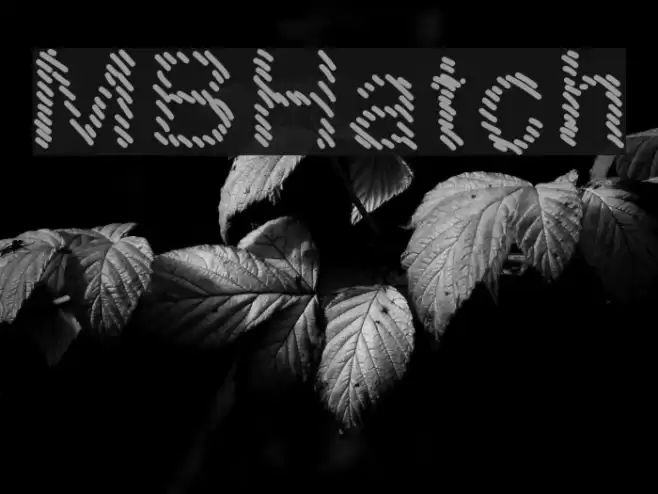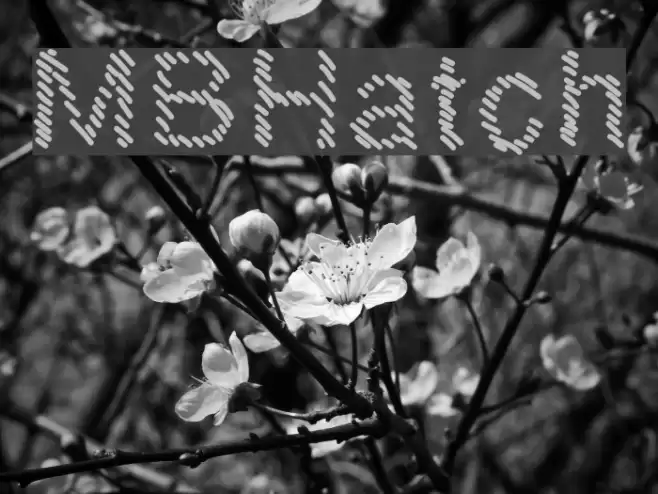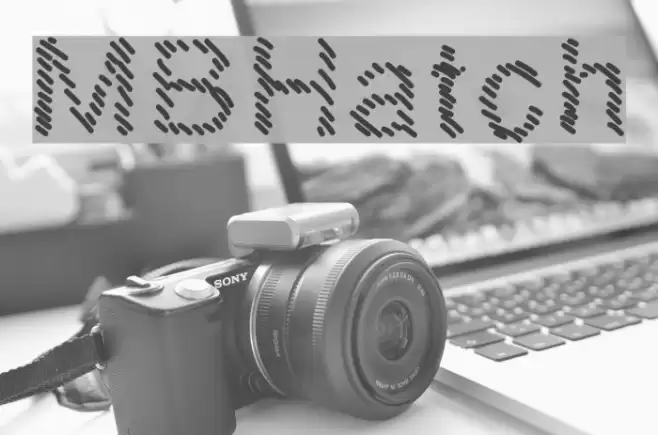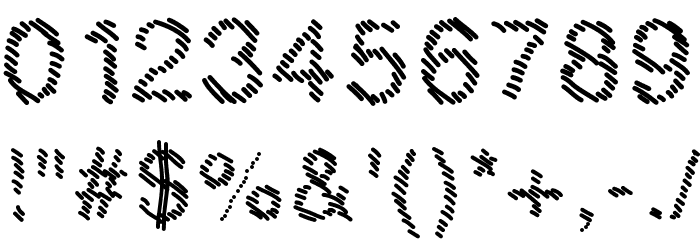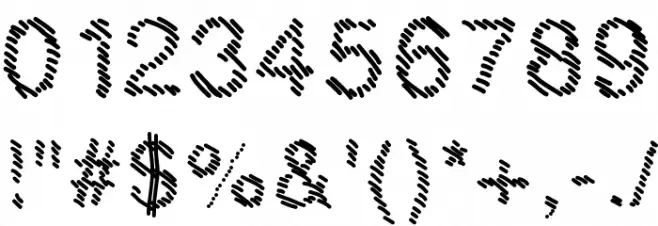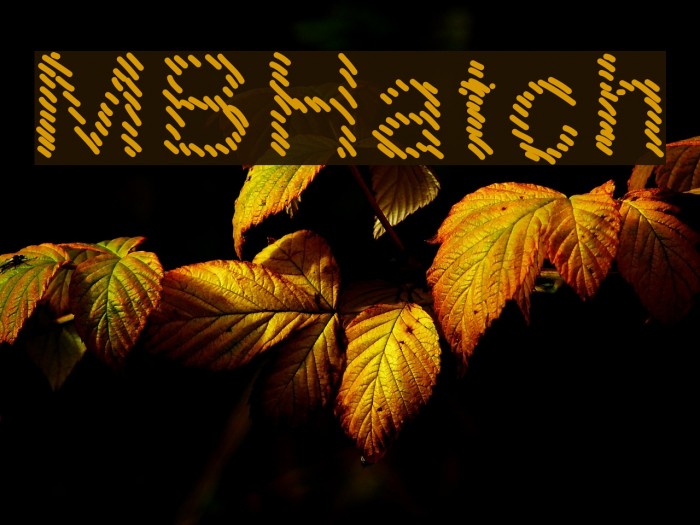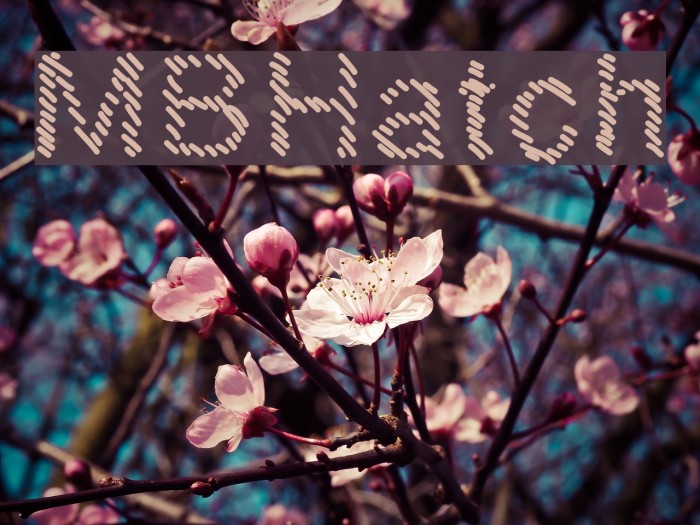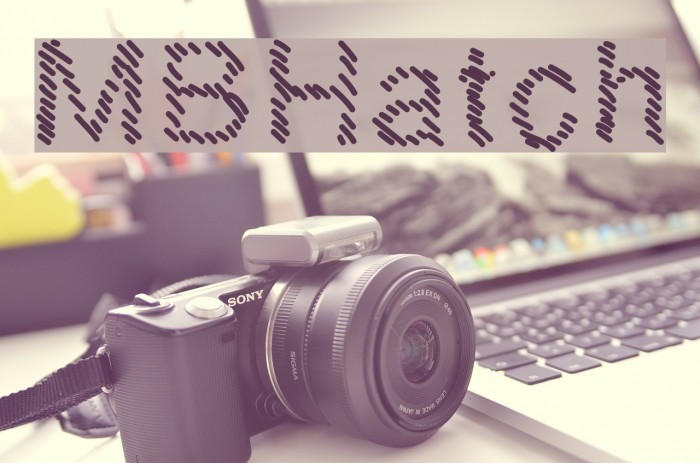
MBHatch Font
MBHatch Description
This font features a unique, textured design with diagonal hatching across each character, giving it a distinctive and dynamic appearance. The uppercase and lowercase letters maintain a consistent style, with rounded edges and a slightly condensed form. The numerals and special characters follow the same pattern, ensuring uniformity across all glyphs. This font's textured style makes it stand out, adding a layer of visual interest that can enhance creative projects. The spacing between characters is normal, allowing for clear readability despite the intricate design. The overall effect is modern and artistic, suitable for projects that require a bold and unconventional look.
A modern, textured font with diagonal hatching for a dynamic and artistic look from Uncategorized fonts.
- Proposed Projects: Ideal for posters, branding, and creative digital designs where a bold statement is needed.
- Overall Style: Modern, Artistic